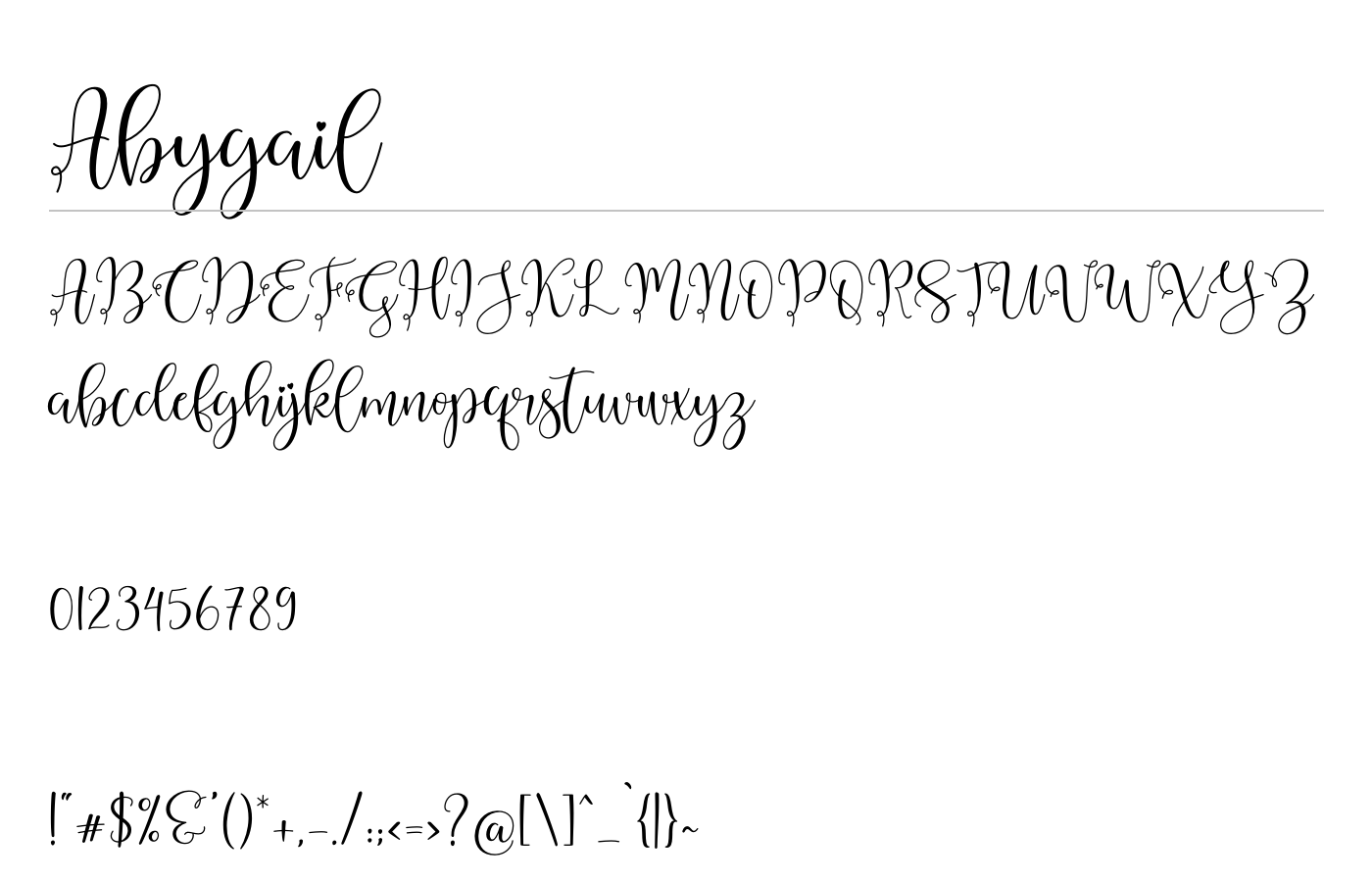
Abygail is a delicate and elegant script font characterized by its flowing, calligraphic style with whimsical swirls and heart-shaped flourishes. Its slender, handwritten strokes give it a romantic and playful feel, making it perfect for invitations, greeting cards, and feminine branding. This font works beautifully in designs that aim to convey grace, charm, and a personal touch.
Abygail Font
About Abygail Font
| Font family | Abygail Font |
| Designer | Typesthetic Studio - Hamzah Muhamad Ihsan - Jakarta (INA) |